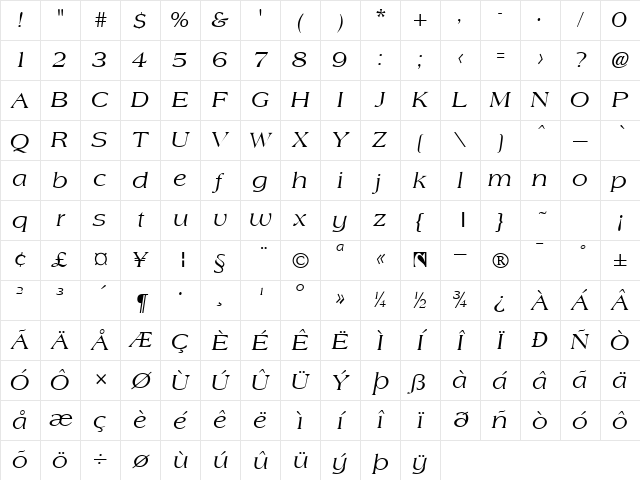
Aphid is a composed and adaptable typeface that performs quietly and consistently across a wide range of design contexts. The slanted form adds forward momentum and visual energy.
Pro Tip: Use Aphid for emphasis, pull quotes, and subheadings where its slanted energy can add rhythm to the layout.